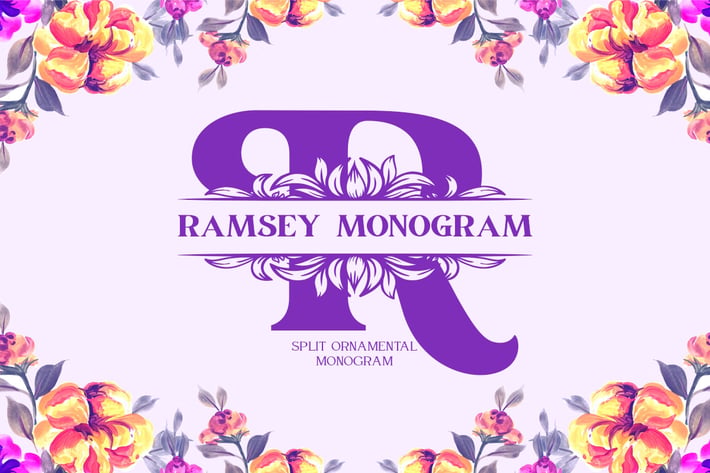
Ramsey Split Monogram Font
Ramsey is an amazing monogram display font. Masterfully designed to become a true favorite, this font has the potential to bring each of your creative ideas to the highest level!